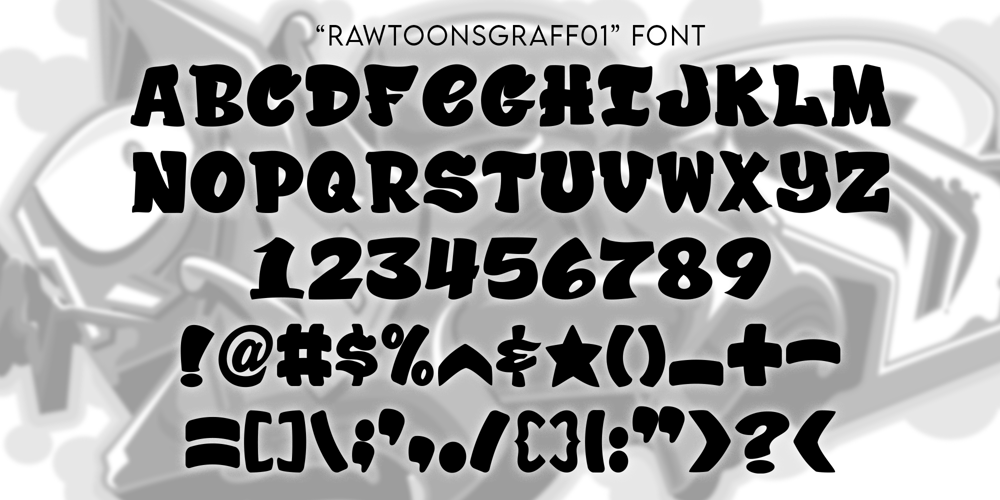
Rawtoons Graff01 Font Family was designed by David Ing and published by Rawtoons. Rawtoons Graff01 contains 1 styles and family package options. “RawtoonsGraff01” font is inspired by the classic New York graffiti art from the 1980s. This font was hand drawn and cleaned up (Vectorized) in Adobe Illustrator. Having done graffiti art in the past, this font is the real deal. A lot of commercial graffiti inspired fonts are lacking authenticity. If you are looking are Graffiti inspired fonts from a former graffiti artist than this is the font for you.